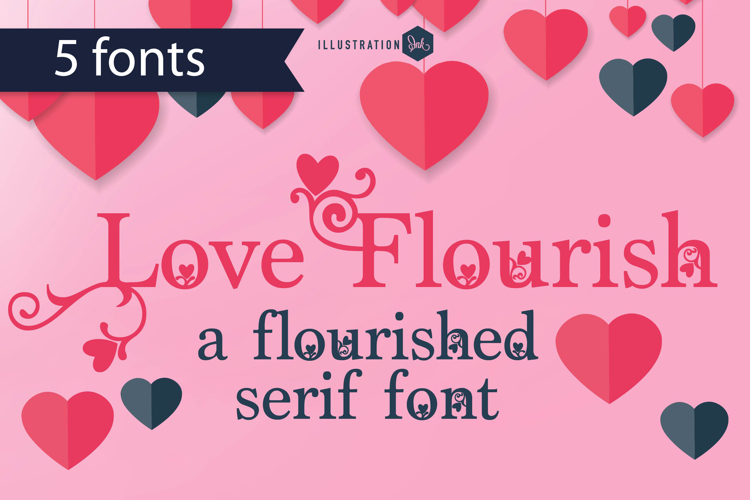
PN Love Flourish Font Family
This hand-crafted font is pretty, flourished serif font with especially large flourishes on the uppercase. There are 5 variations included.